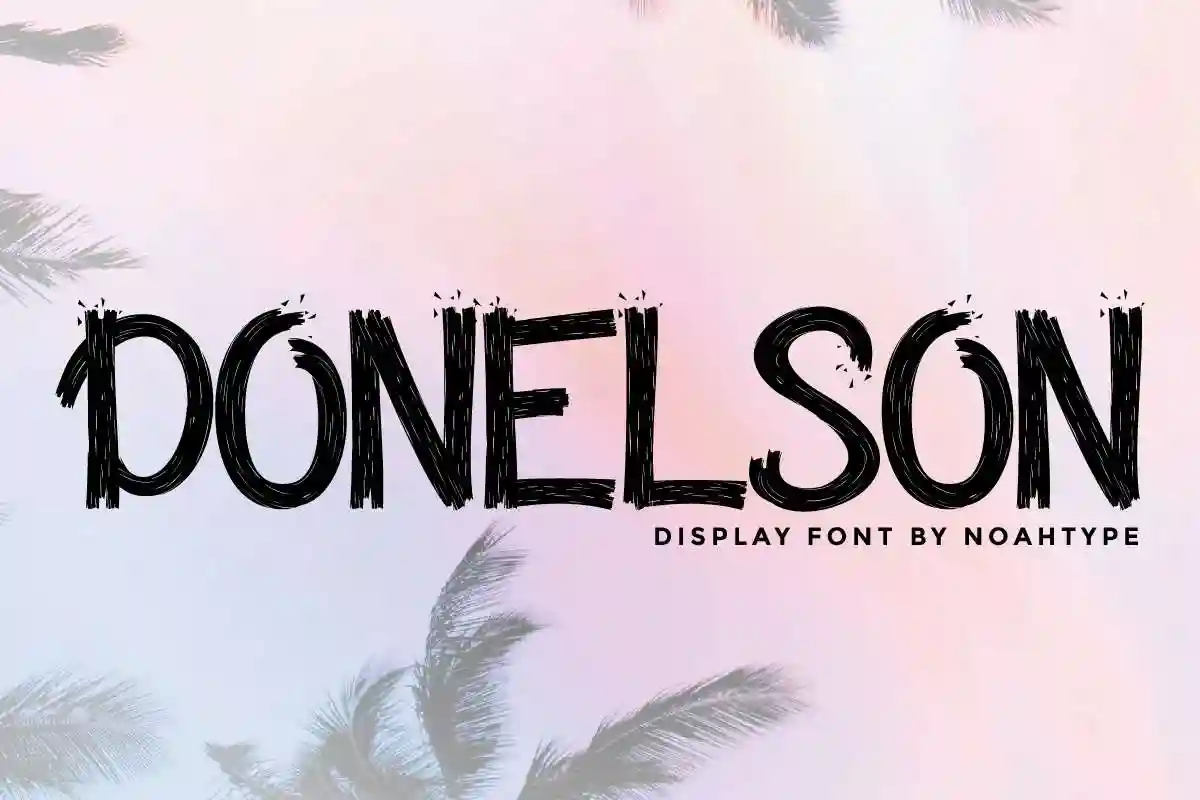
Donelson
Donelson Font is a grunge bold brush font with a gaming, mysterious style and all caps characters. This font is crafted carefully in every its single scratch, created to look as close to a actual brush so that it can create the perfect display on each glyph. When we make this font, we really want to create a touch that is so free-flowing that it gives a REAL impression on its use later.
Donelson Font includes full set of All Caps for upper and lowercase Basic Characters, Numerals and Punctuation. This awesome font is for anyone who needs a unique and bold textured style for their designs.
This font is perfect for many projects: branding design, games, logos, products packaging, signage, social media, webpage and more!